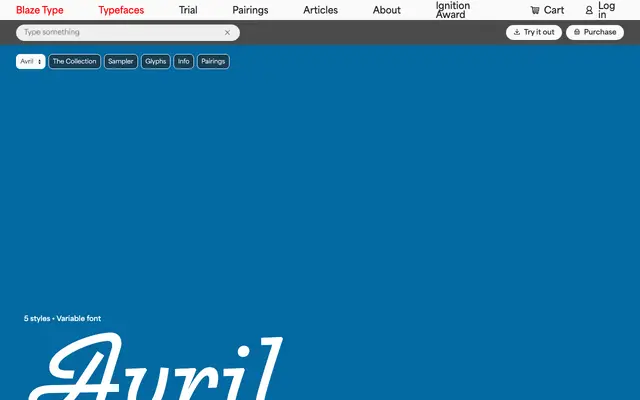
Avril
Avril specimen from Blaze Type
A semi-connecting script in five weights drawn from mid-century French sign-painting, with loopy curves that suggest a single unbroken line.
Designed by Laurene Girbal and released in 2023, Avril takes its cue from Jean Joveneaux's 1950s French sign-painting manual, translating that loose, brush-driven rhythm into a digital script with low-contrast strokes and expressive letterforms. Five weights from Thin to Bold give it range: lighter cuts hold up in short paragraphs while the heavier styles suit headlines and display work. A variable font file ships alongside the static formats.
Described explicitly as a script typeface, loosely inspired by French sign painting with expressive semi-connecting characters and loopy curves that mimic dynamic handwriting.